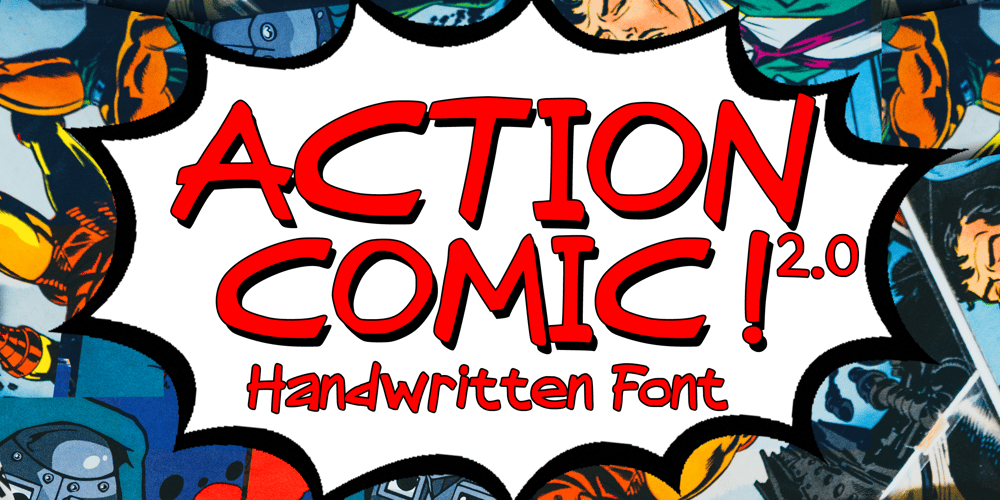
Action Comic 2.0 Font Family was designed by Gabriel Valentinus and published by Mvmet. Action Comic 2.0 contains 1 styles and family package options. Action Comic 2.0 is an energetic and expressive comic handwritten font. You can use it for anything ranging from t-shirts, kids’ book designs, and greeting cards to stickers and posters, or anything that needs a casual touch. Fall in love with its incredibly versatile style and use it to create lovely designs!